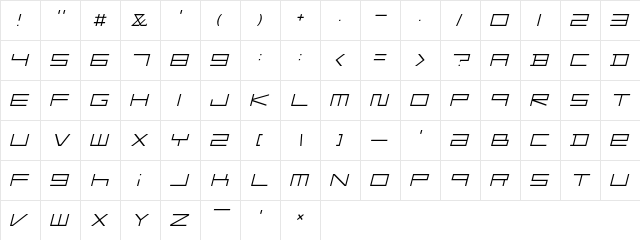
F-Zero GX Menu Font Thin Italic Font Preview
Design Context for F-Zero GX Menu Font Thin Typeface
F-Zero GX Menu Font Thin is a composed and adaptable typeface that performs quietly and consistently across a wide range of design contexts. The slanted form adds forward momentum and visual energy. The delicate stroke weight brings airiness and refinement to layouts.
Pro Tip: Try F-Zero GX Menu Font Thin for annotation and caption copy alongside an upright companion — the contrast in angle creates a dynamic but ordered typographic system.